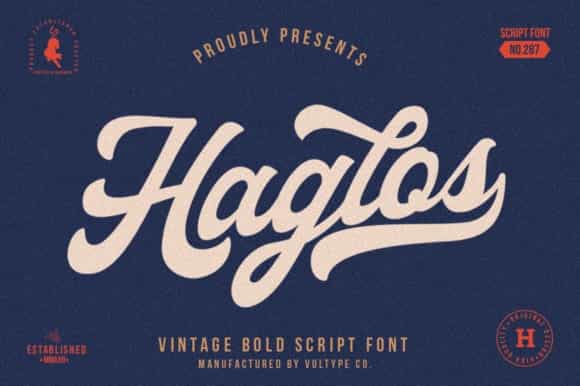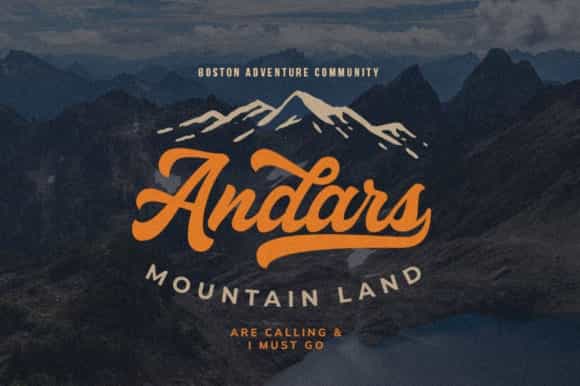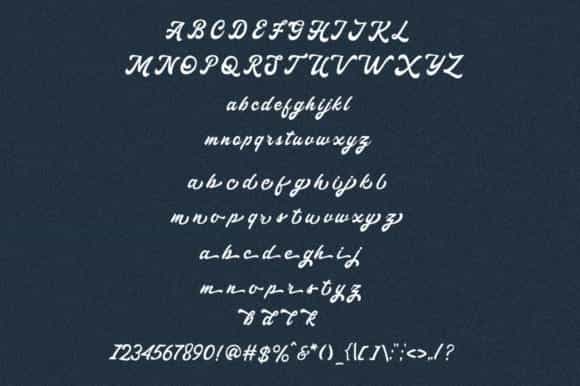
Haglos is a Gorgeous Calligraphy Script Font with Lovely Style. This font is the best for fashion brand, wedding invitation, business card, logo and signature. It can also be used as a calligraphy tool.